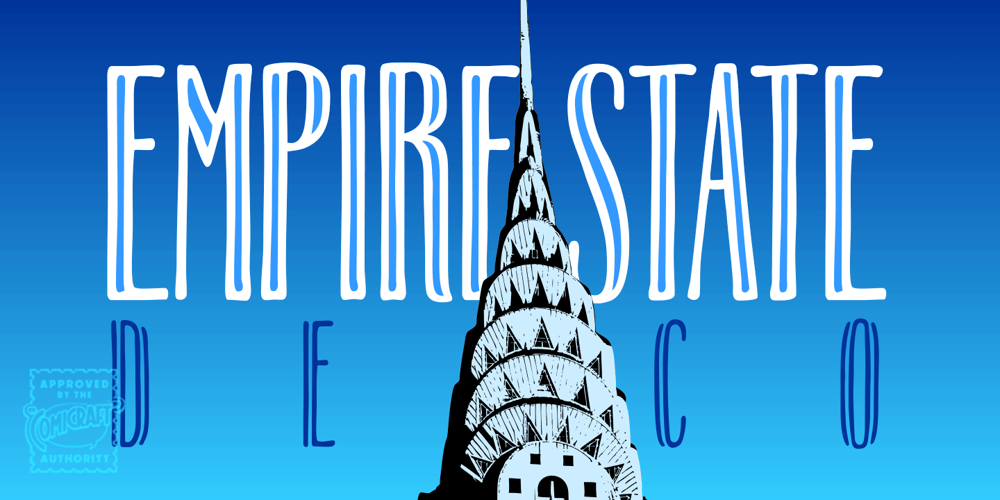
Empire State Deco
Empire State Deco font
Empire State Deco Font Family was designed by John Roshell and published by Comicraft. Empire State Deco contains 4 styles and family package options. Every face tells a story but this font is 77 stories high (1,046 feet with antenna included)! A lofty companion to Empire State Gothic, Empire State Deco is a tall, stately font containing four different styles, sometimes contradictory, united by the desire to be modern. Those familiar with the Exposition Internationale des Arts Décoratifs et Industriels Modernes will notice a post-postmodernism combined with the fine craftsmanship and rich materials for which those awfully nice chaps at Comicraft are known.During its Art Deco heyday, Comicraft represented luxury, glamour, exuberance, and faith in social and technological progress — this new font recaptures those halcyon days in letter form.